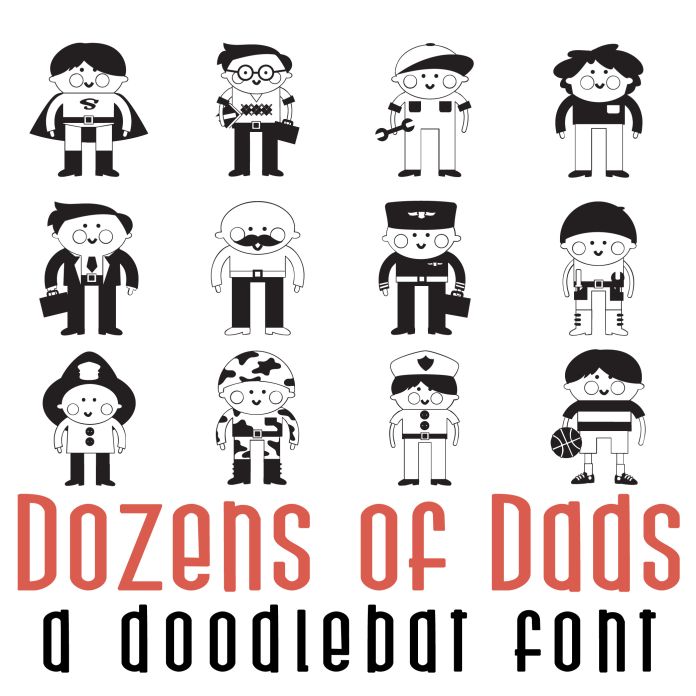
This fun doodlebat font features 26 different dads in their occupations, perfect for cards, crafts, gifts, decor, scrapbook pages, planner stickers, and Father's Day!